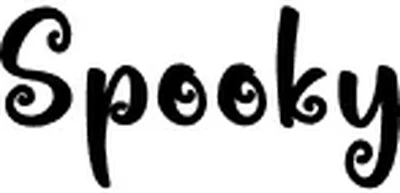
Spooky 4 Font
Spooky 4 combines clean construction with expressive detail, making it a dependable asset in any type toolkit.
Its proportions suit a wide range of uses: website headers, printed flyers, restaurant menus, annual reports, and product packaging.